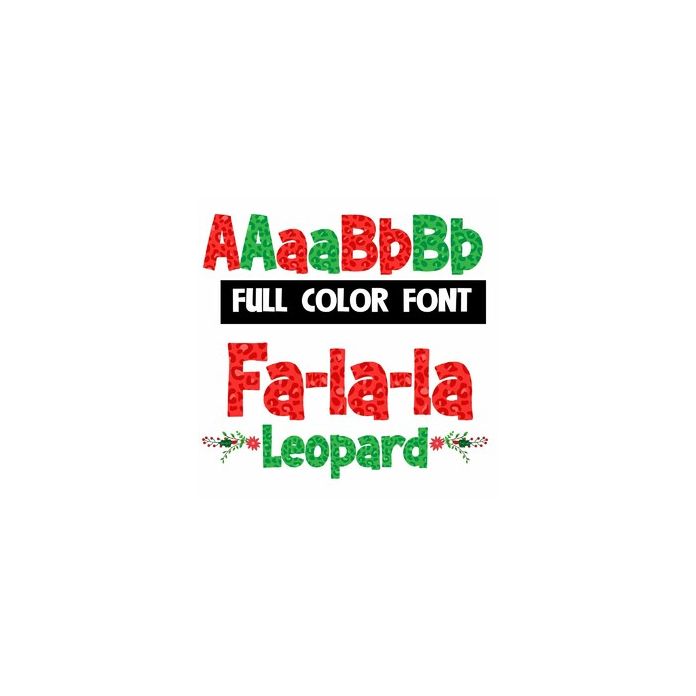
This full-color font features red-leopard printed lettering. There is an alt uppercase with green colors that you can access through your system's character map. Access the poinsettia flourishes with the greater than and less than glyphs.